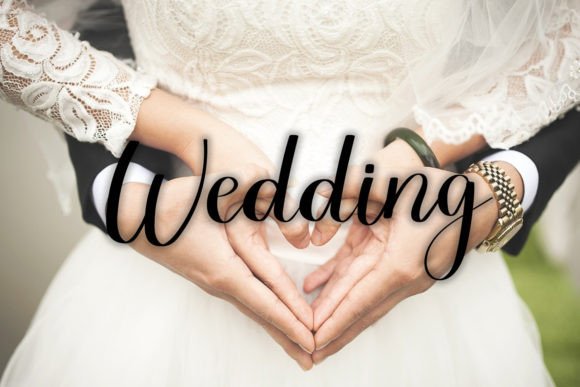
Bold Font
Introducing “Bold Font,” a mesmerizing script and handwritten typeface that captures attention instantly. Its bold and expressive strokes exude charisma, making it perfect for adding a touch of flair to logos, posters, and invitations. Embrace the allure of this unique “Bold Font” in your creative endeavors.